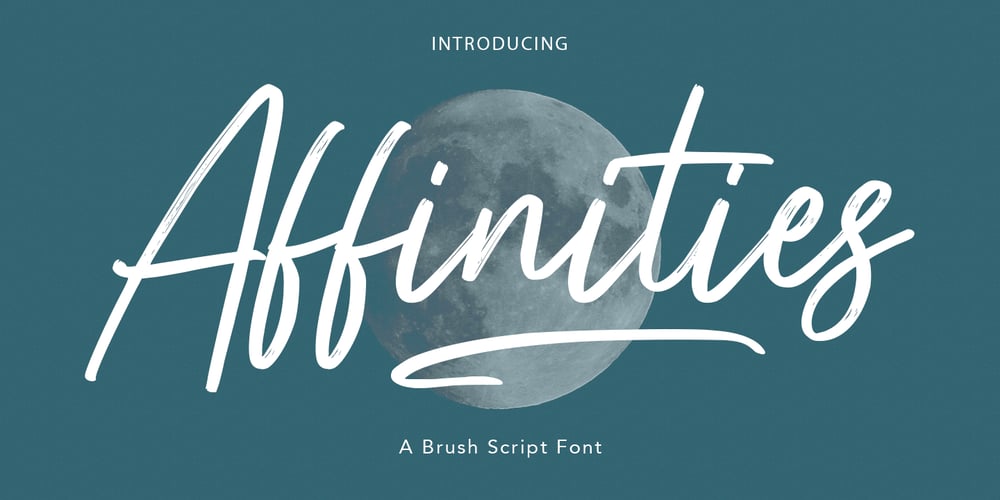
Affinities Font Family was designed by Gilang Maulana and published by Maulana Creative. Affinities contains 2 styles and family package options. Affinities is casual brush script font, with clean mono-line stroke, slanted and fun character. It has Opentype features ligatures of character and swashes, To give you an extra creative work. Affinities font support multilingual more than 100+ language. This font is good for logo design, Social media, Movie Titles, Books Titles, a short text even a long text letter and good for your secondary text font with sans or serif. Make a stunning work with Affinities font. Cheers, MaulanaCreative